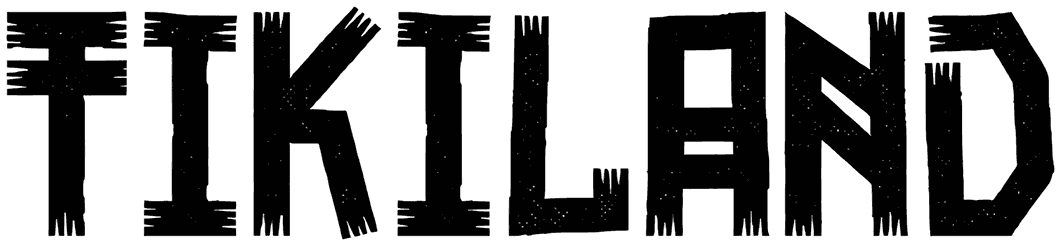
Tikiland Font
If you want to match fonts for your new project but don’t have enough time, Tikiland has a pre-made font mix. This tiki font is developed based on brush fonts and looks dubbing in some letters.
So, it is a complete package for designers interested in wood fonts with a relatively busy look, but easy to understand. This font does not support numbers, but it works very well for shop signs, book covers, and posters.